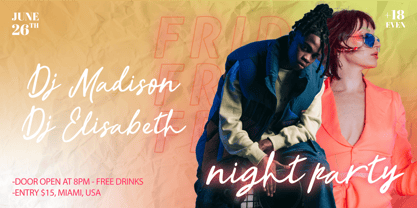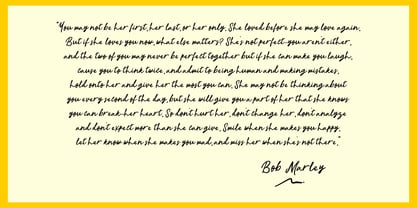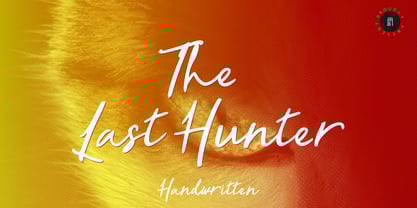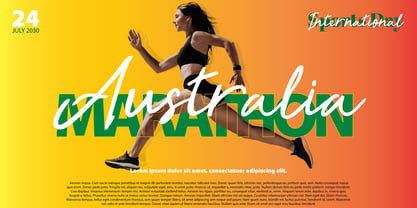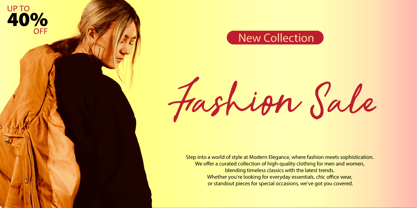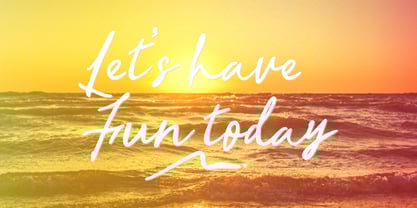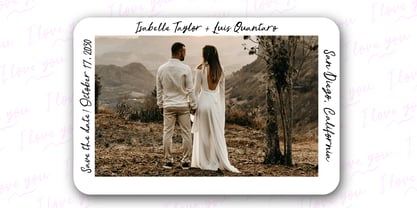
The Last Hunter
by Masinong Studio
The The Last Hunter Font Family was designed by Fajriadi and published by Masinong Studio. The Last Hunter contains 1 styles.
The Last Hunter
This handwritten font captures the charm and authenticity of natural handwriting. With its fluid strokes and subtle imperfections, it brings a personal and expressive touch to any design. Perfect for invitations, greeting cards, logos, or social media graphics, this font adds warmth and personality to your text. Its casual yet elegant style makes it versatile for both playful and professional projects.
About Masinong Studio
Masinong Studio, as a full-time independent type designer, I have created over 200 unique fonts. I am proud to be a developer of handwritten OpenType fonts from using rough brushes, markers, brush pens, or using an iPad. My work covers the entire font design process: from sketching to designing and launching the final product. My expertise and experience ensure the high quality and uniqueness of every font I create.